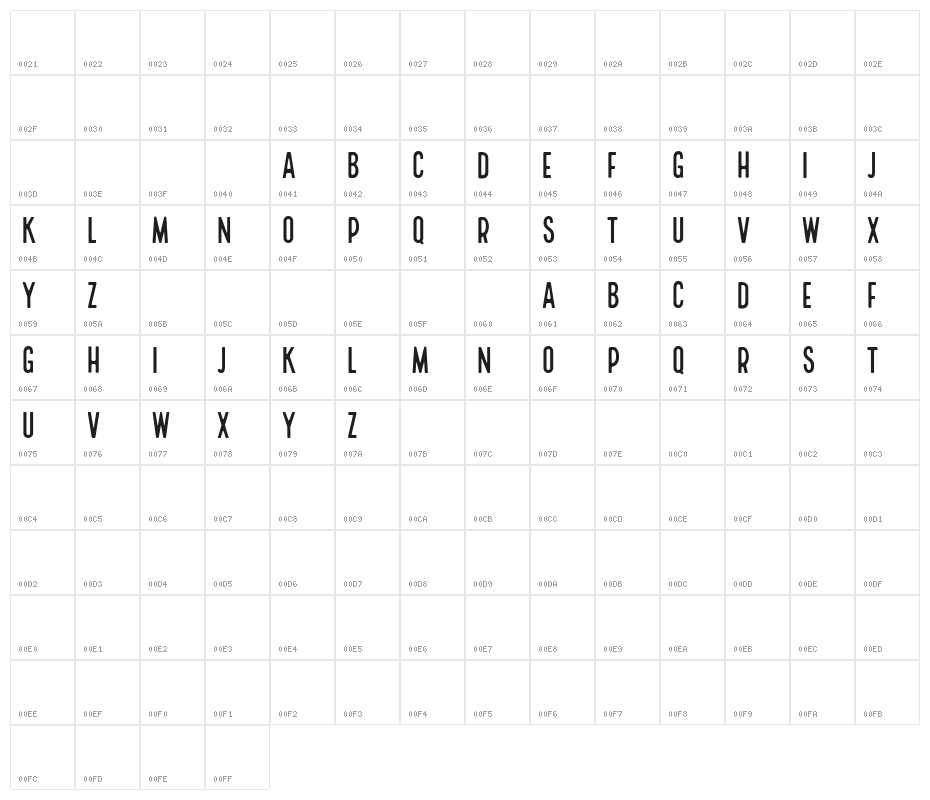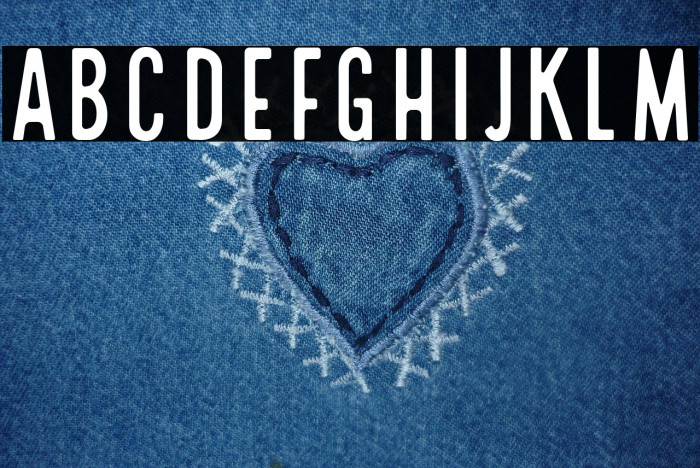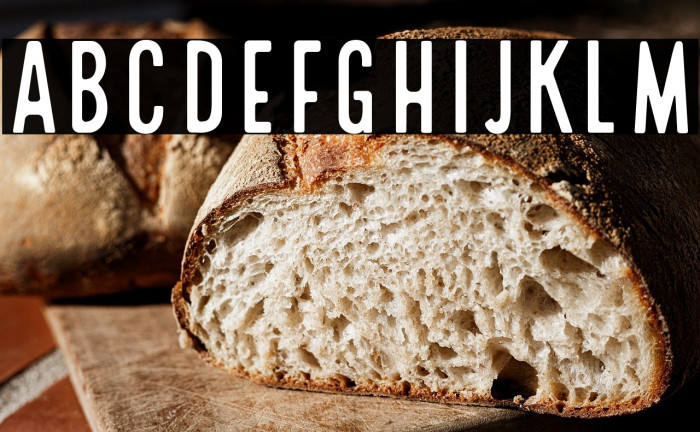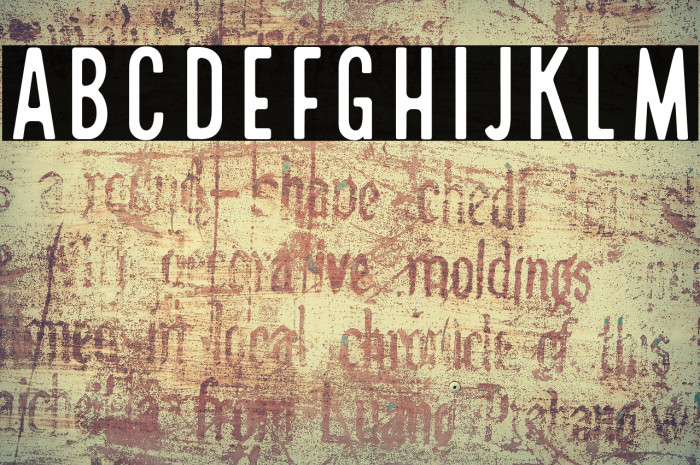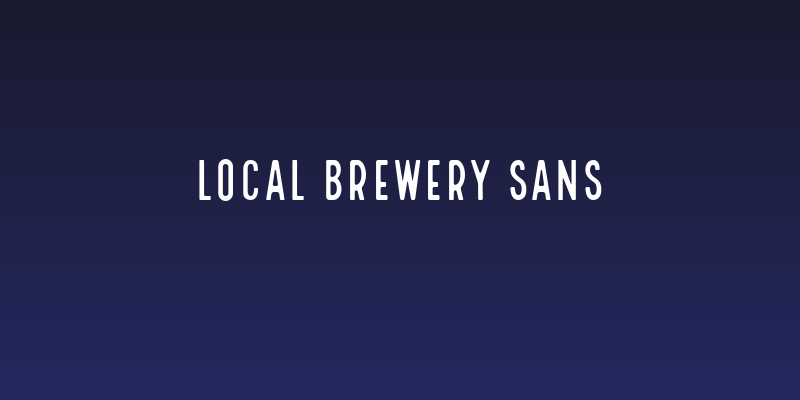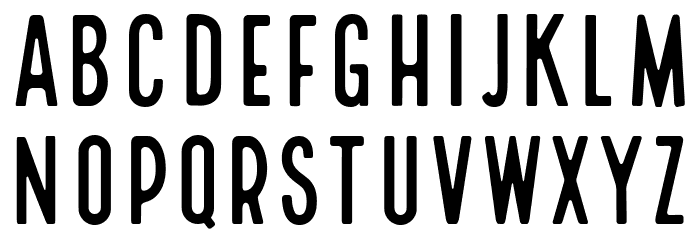
Local Brewery Sans Font
Local Brewery Sans Description
This font features a bold, sans-serif style with a modern and clean appearance. The characters are tall and slightly condensed, providing a strong and impactful visual presence. The uniform stroke width throughout the letters gives it a consistent and cohesive look, making it suitable for various design applications. The uppercase letters are prominent and well-defined, with a slight curvature that adds a touch of softness to the otherwise robust design. This font is versatile and can be used effectively in both digital and print media, offering readability and style.
| Use Case | Headlines, Logos, Signage |
| Proposed Projects | Ideal for branding, signage, headlines, and packaging design. |